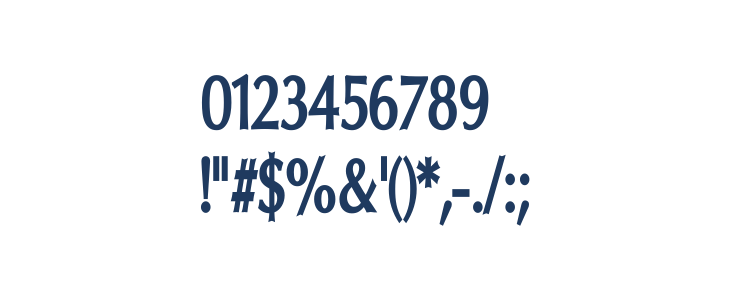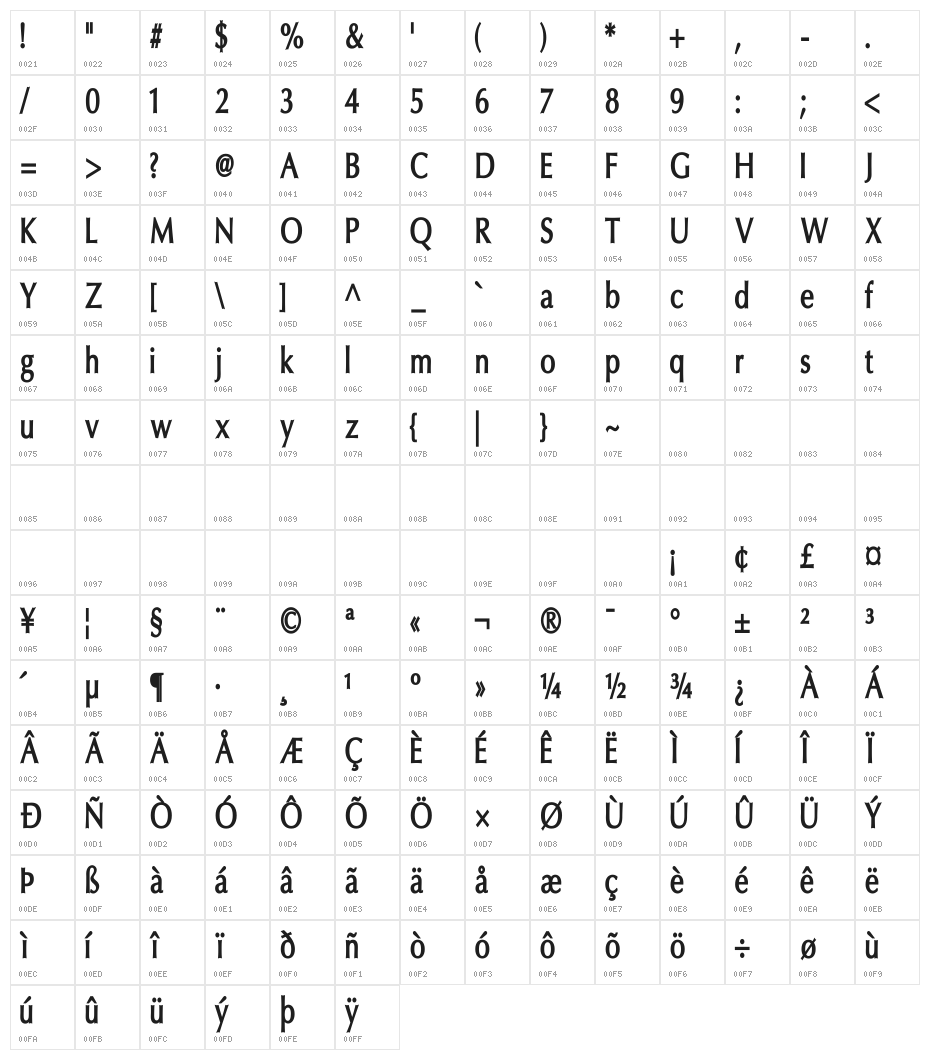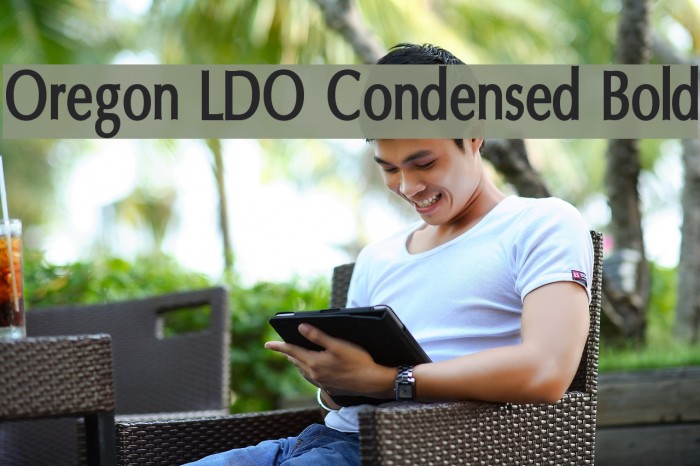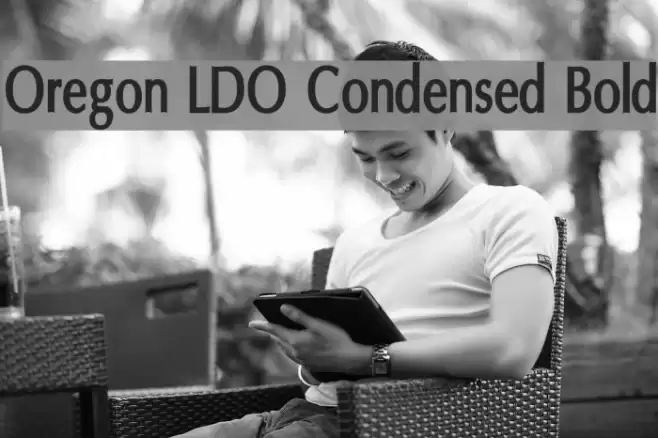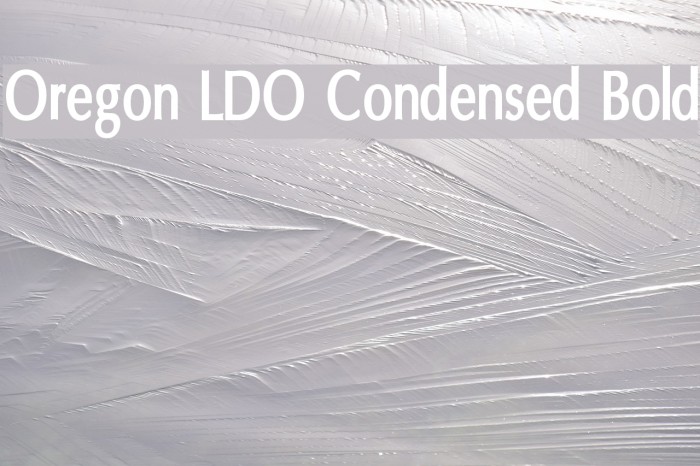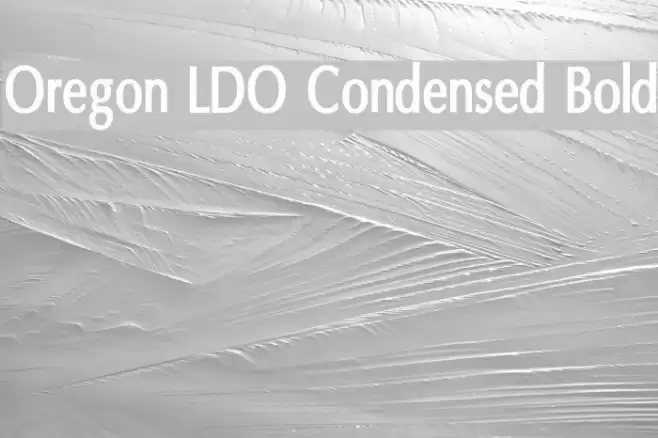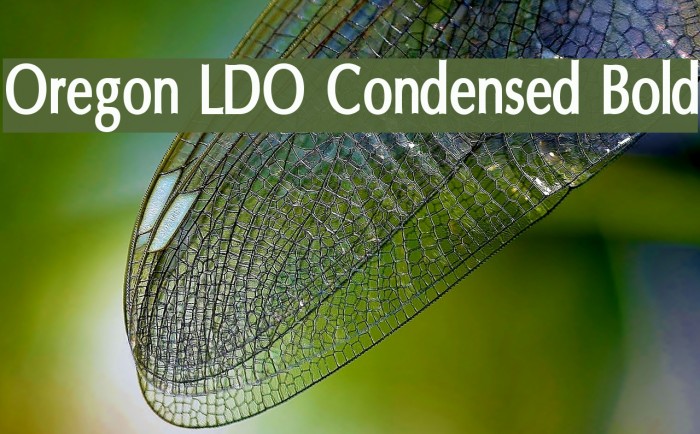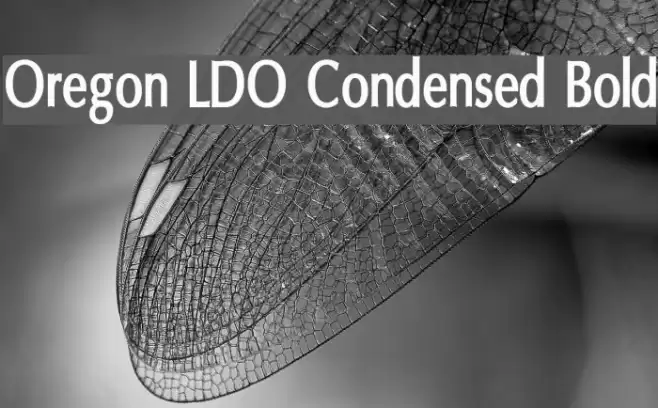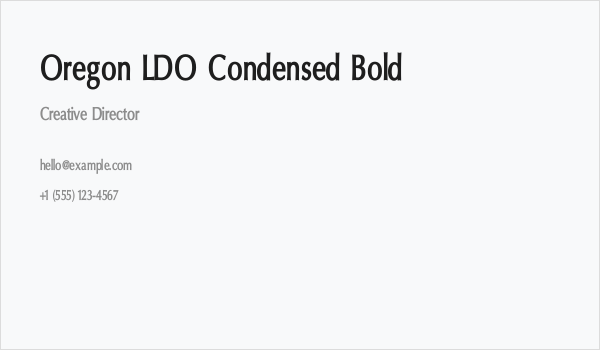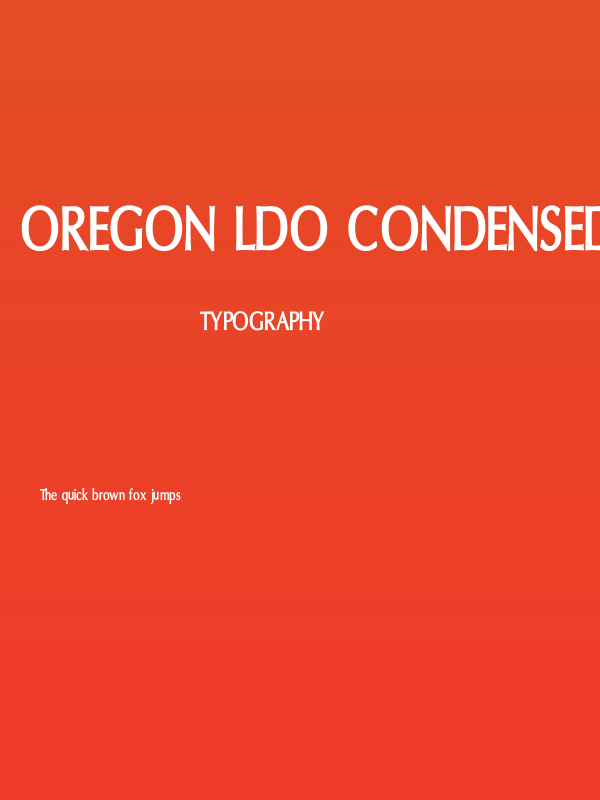
Oregon LDO Condensed Bold Font
Oregon LDO Condensed Bold Description
This font features a bold and condensed style, characterized by its strong vertical emphasis and minimal spacing between characters. The uppercase letters are tall and commanding, while the lowercase letters maintain a consistent height that complements the overall boldness. The numerals are clear and legible, designed to stand out with their robust form. Special characters are crafted with precision, maintaining the font's cohesive appearance. This typeface is ideal for making a strong visual impact, suitable for headlines and titles where space is limited but emphasis is needed.